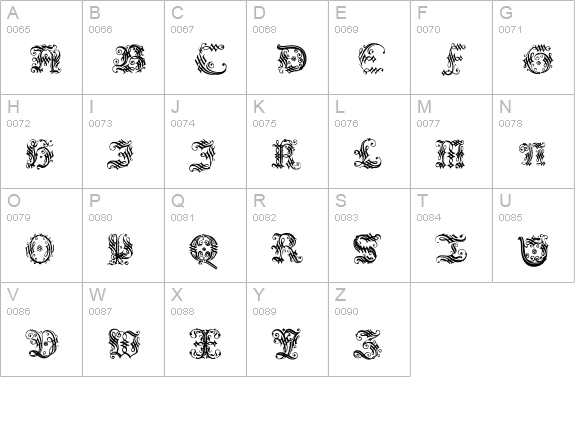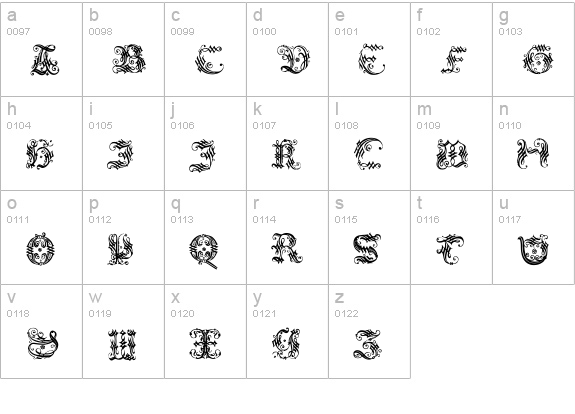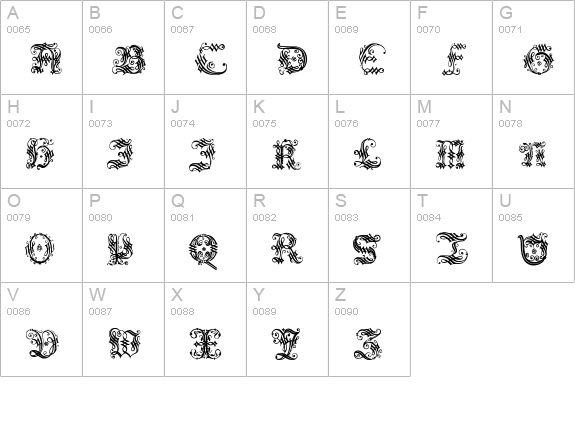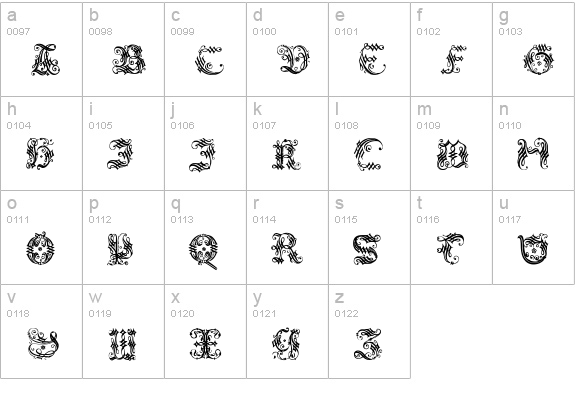
OrnamentalInitial Font Details
OrnamentalInitial font is a stunning and intricate typeface that exudes elegance and sophistication. With its ornate details and decorative elements, this font is perfect for adding a touch of luxury to your designs. Each letter is beautifully crafted with delicate flourishes and embellishments, making it a truly unique and eye-catching choice for any project. The best part? OrnamentalInitial font is available for free download at FontsMarket.com. You can easily add this exquisite font to your collection and use it in various creative projects without any cost. Whether you're designing invitations, branding materials, or decorative pieces, OrnamentalInitial font will elevate your work and leave a lasting impression. Download it today and unleash your creativity with this exquisite typeface.